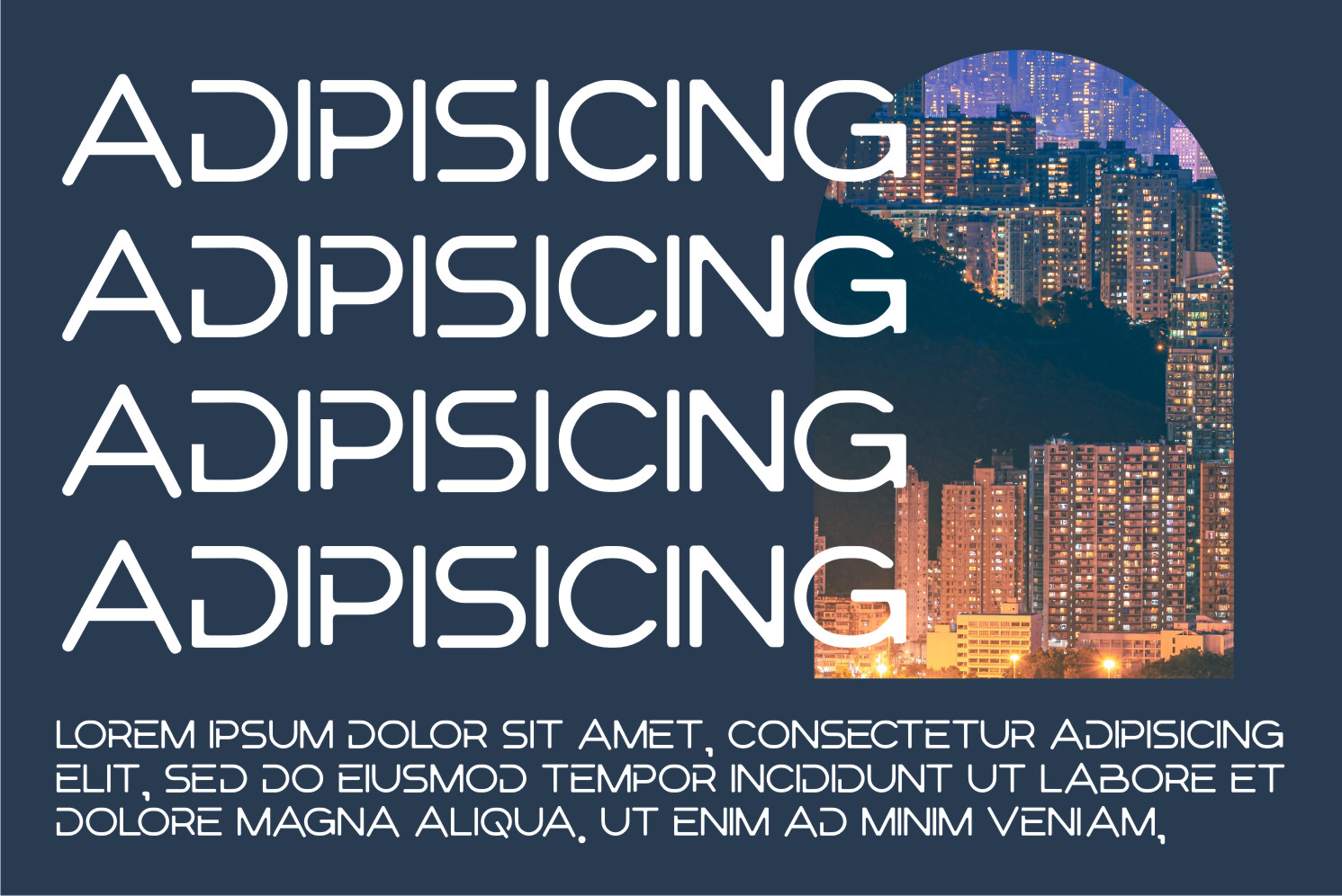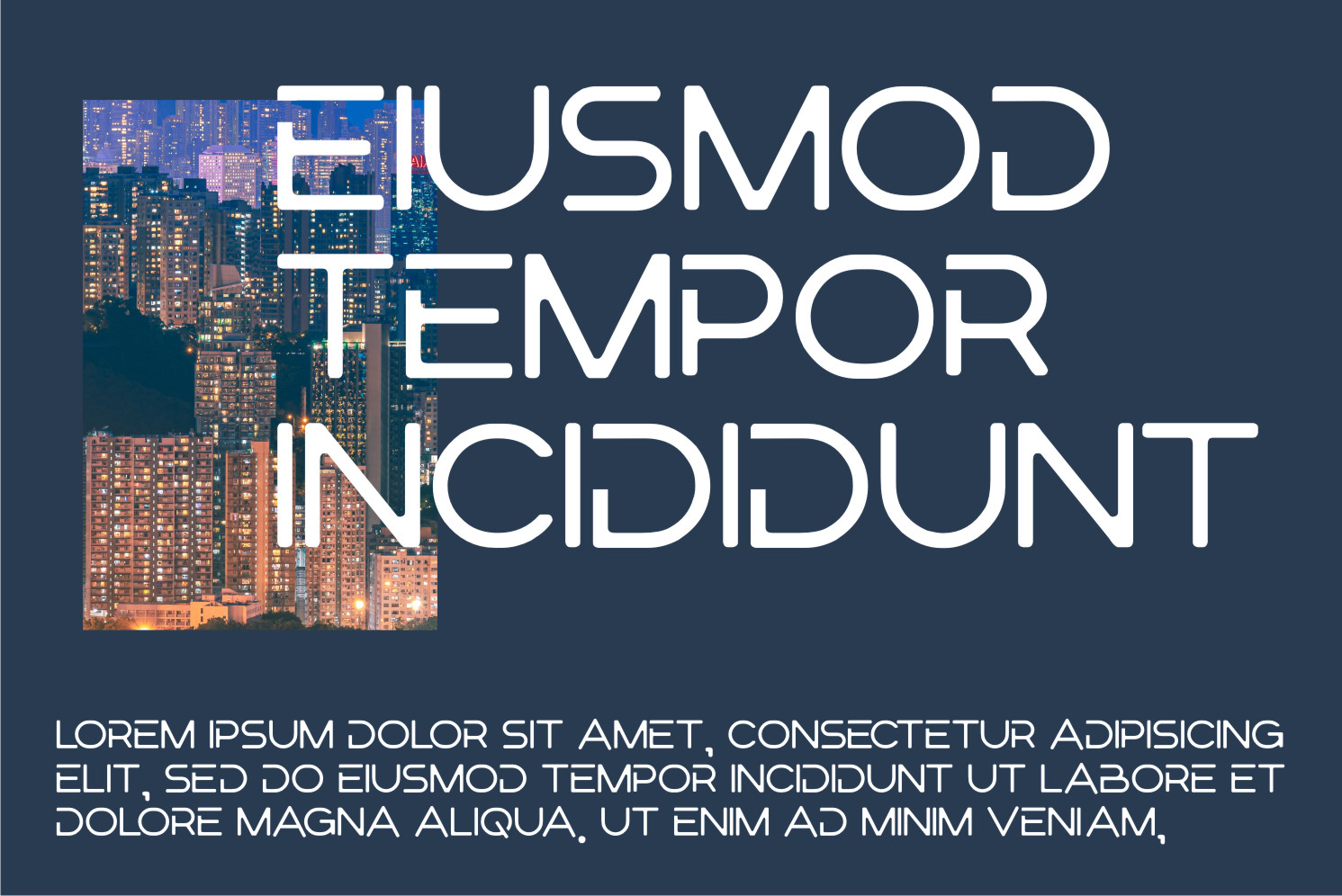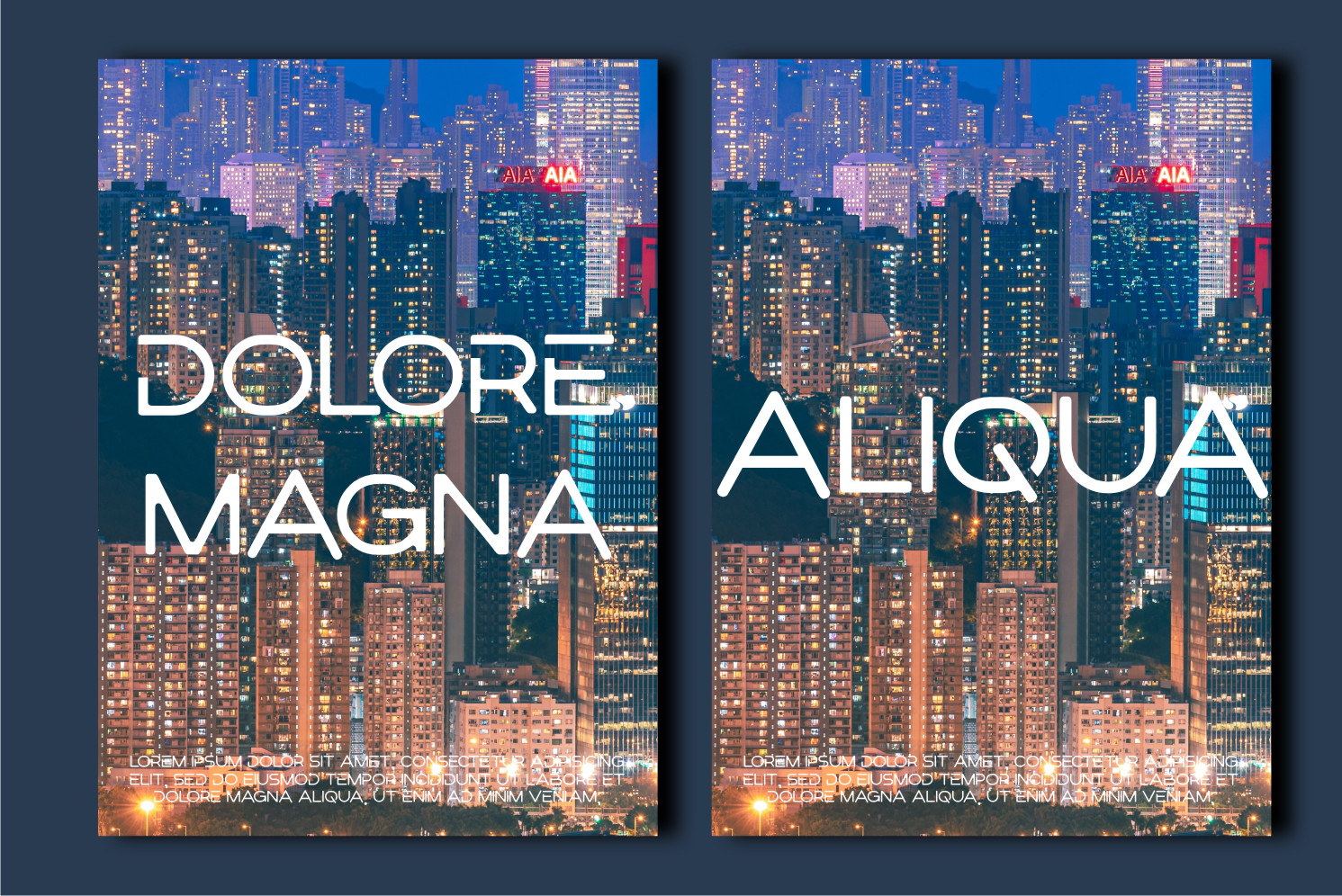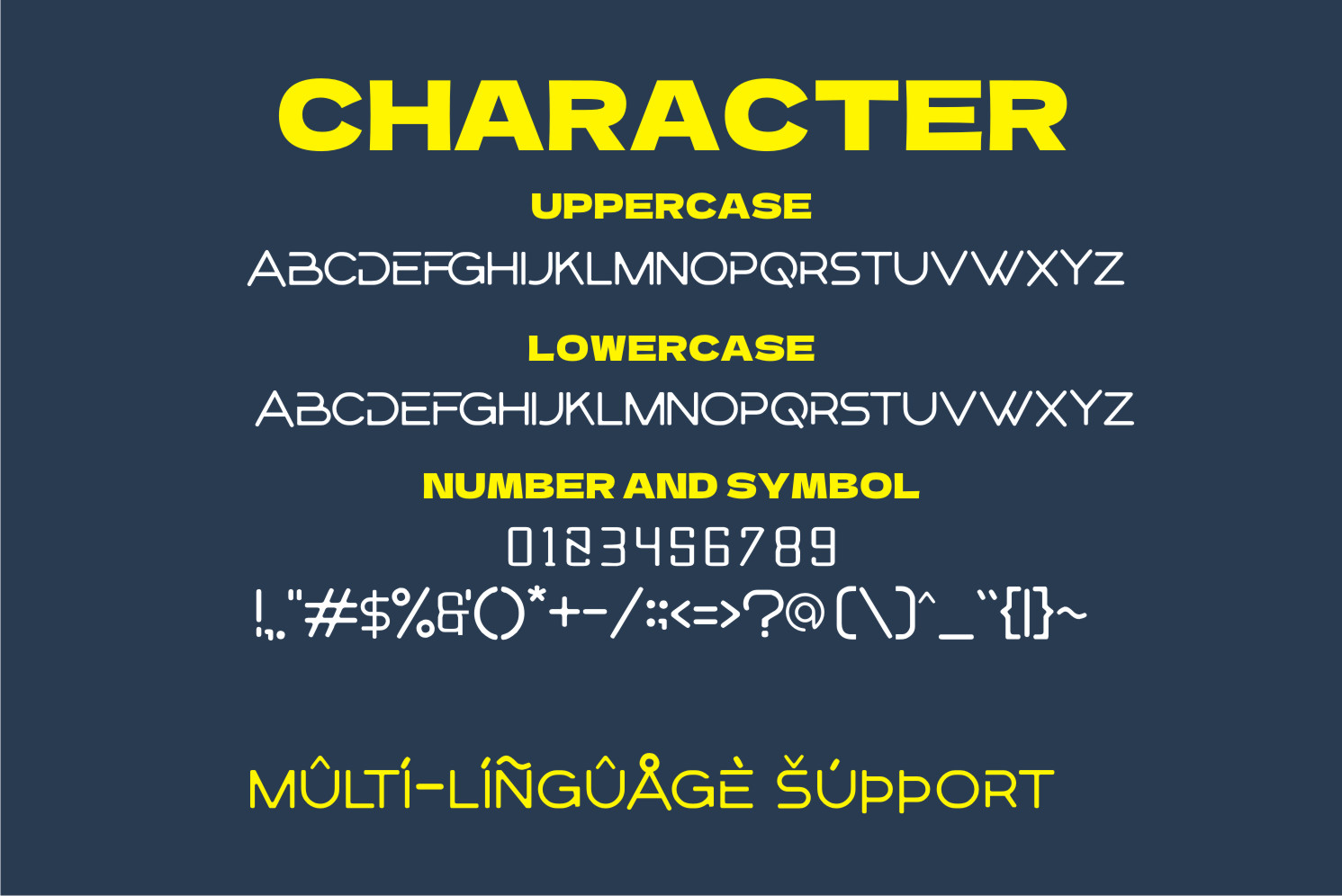
Rumor Display Font
It’s a cool, robotic, and modern-looking display font. This font is ideal for web designs, business cards, or pretty much anything else that requires a unique touch.